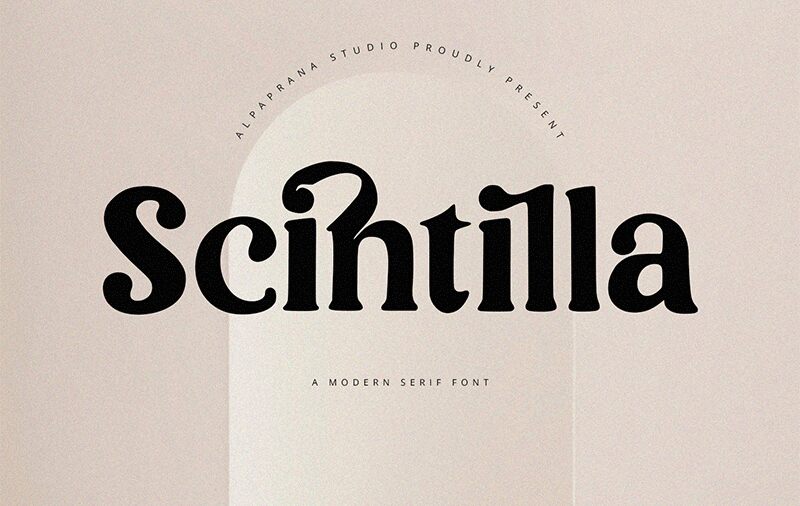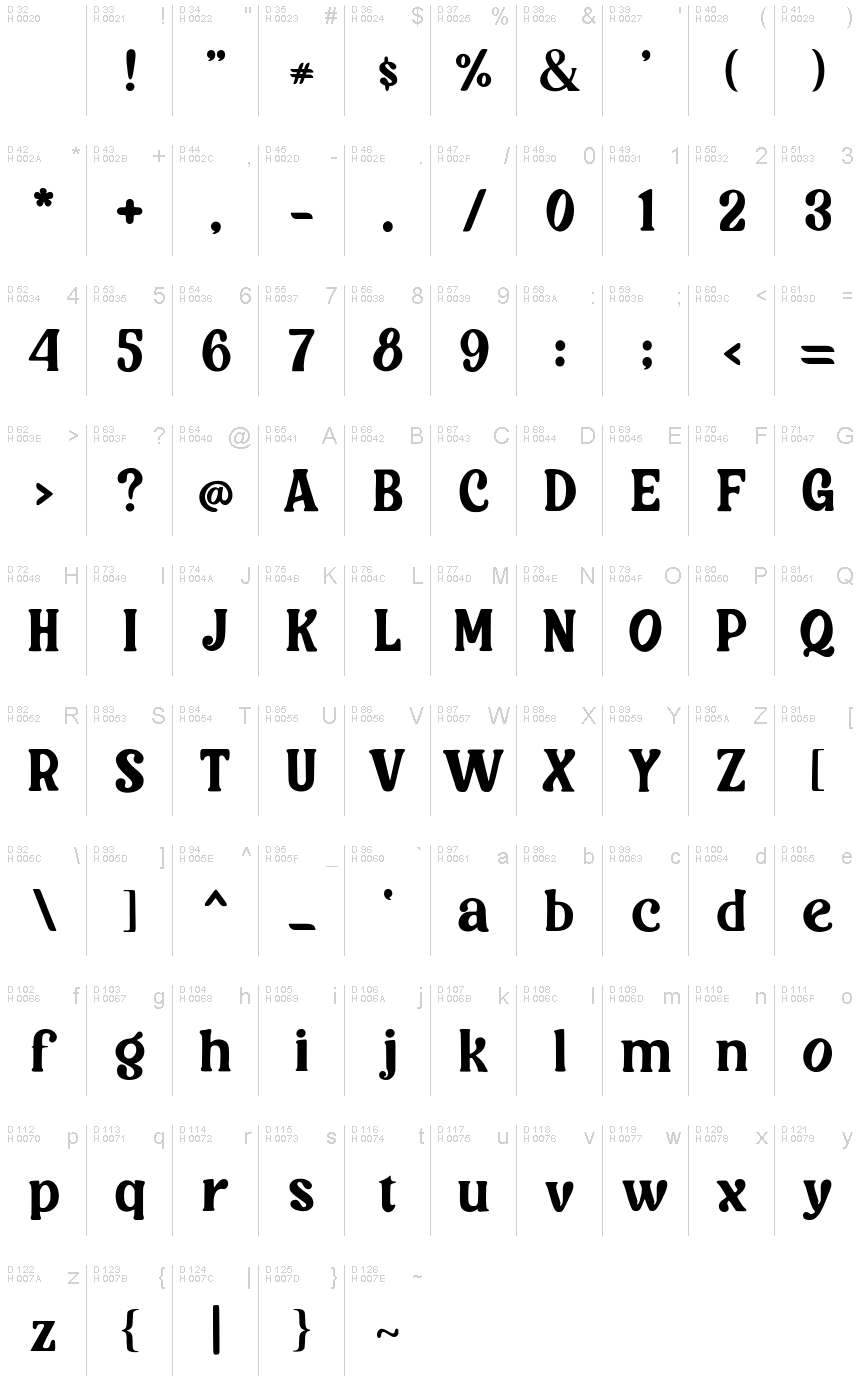
Scintilla, a bold and retro-inspired serif font crafted by Alpaprana Studio, exudes a captivating blend of vintage charm and modern elegance. With its thick, expressive strokes and distinctive serifs, this display font effortlessly commands attention, making it a standout choice for attention-grabbing designs. The Scintilla font's robust, confident aesthetic evokes a sense of timeless allure, seamlessly integrating with a variety of creative projects that seek to convey a sense of heritage and prestige.
Scintilla's versatility shines through, rendering it a versatile choice for various design applications. From eye-catching headlines and impactful logos to captivating book covers and retro-inspired branding, this font's bold presence and retro-infused character can elevate the visual impact of any project. Scintilla's striking balance of tradition and modernity makes it a compelling option for designers seeking to create designs that strike a harmonious balance between the past and the present.